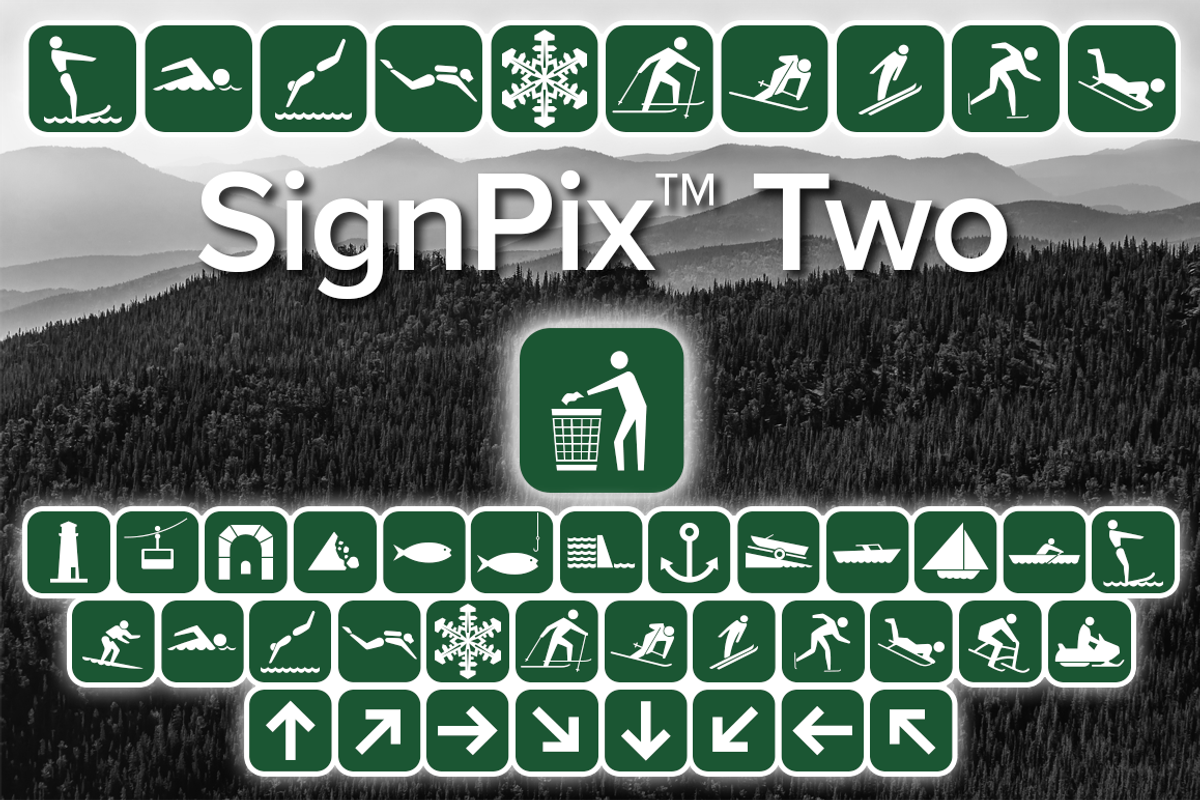
SignPix Two
The SignPix series of fonts are an extensive collection of all the iconic symbols you see on highways, in parks, and in recreational areas. SignPix is recommended and used by the U.S. Fish & Wildlife Service as their graphics standard for their signs and publications. SignPix Two contains many additional symbols to complement SignPix One.